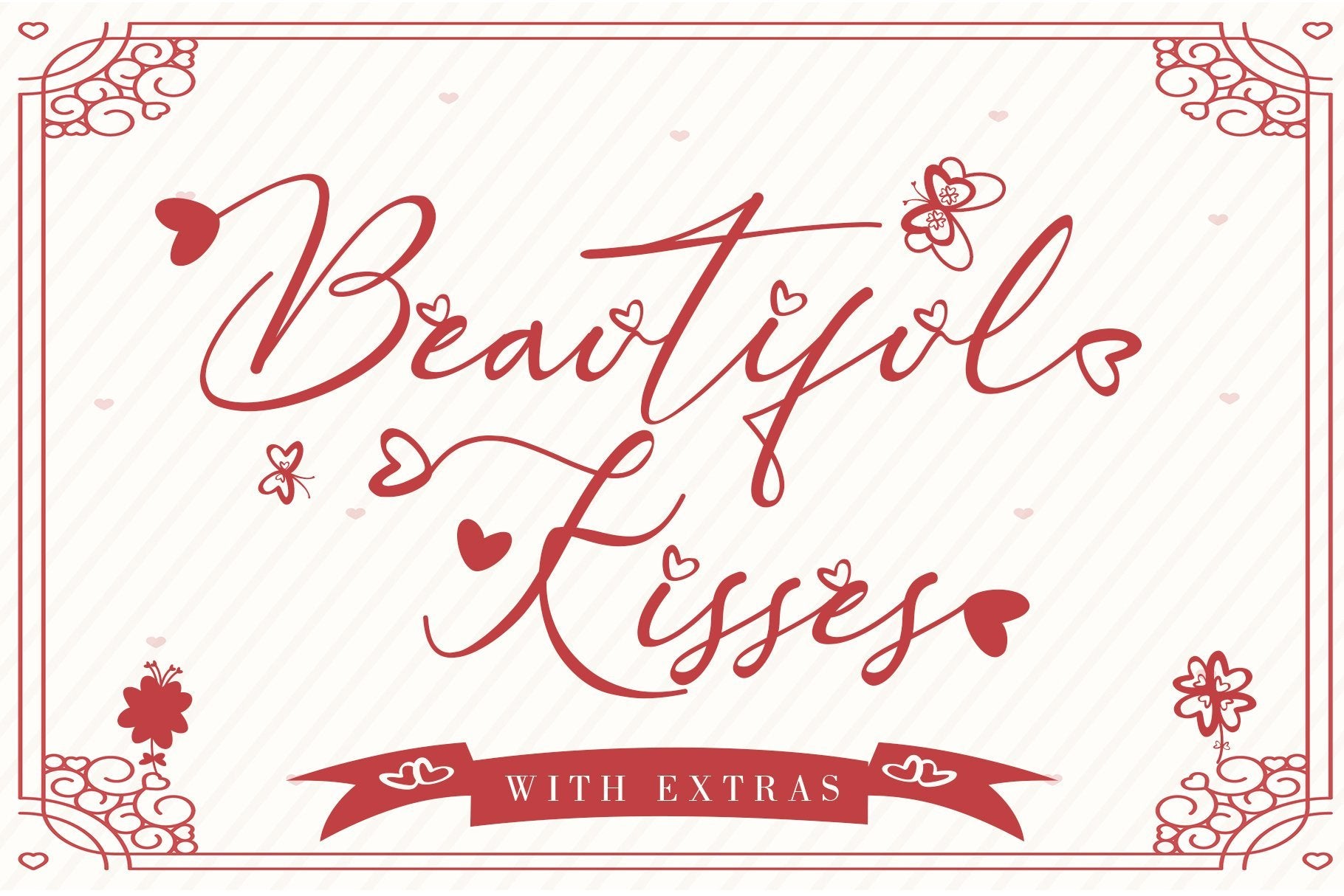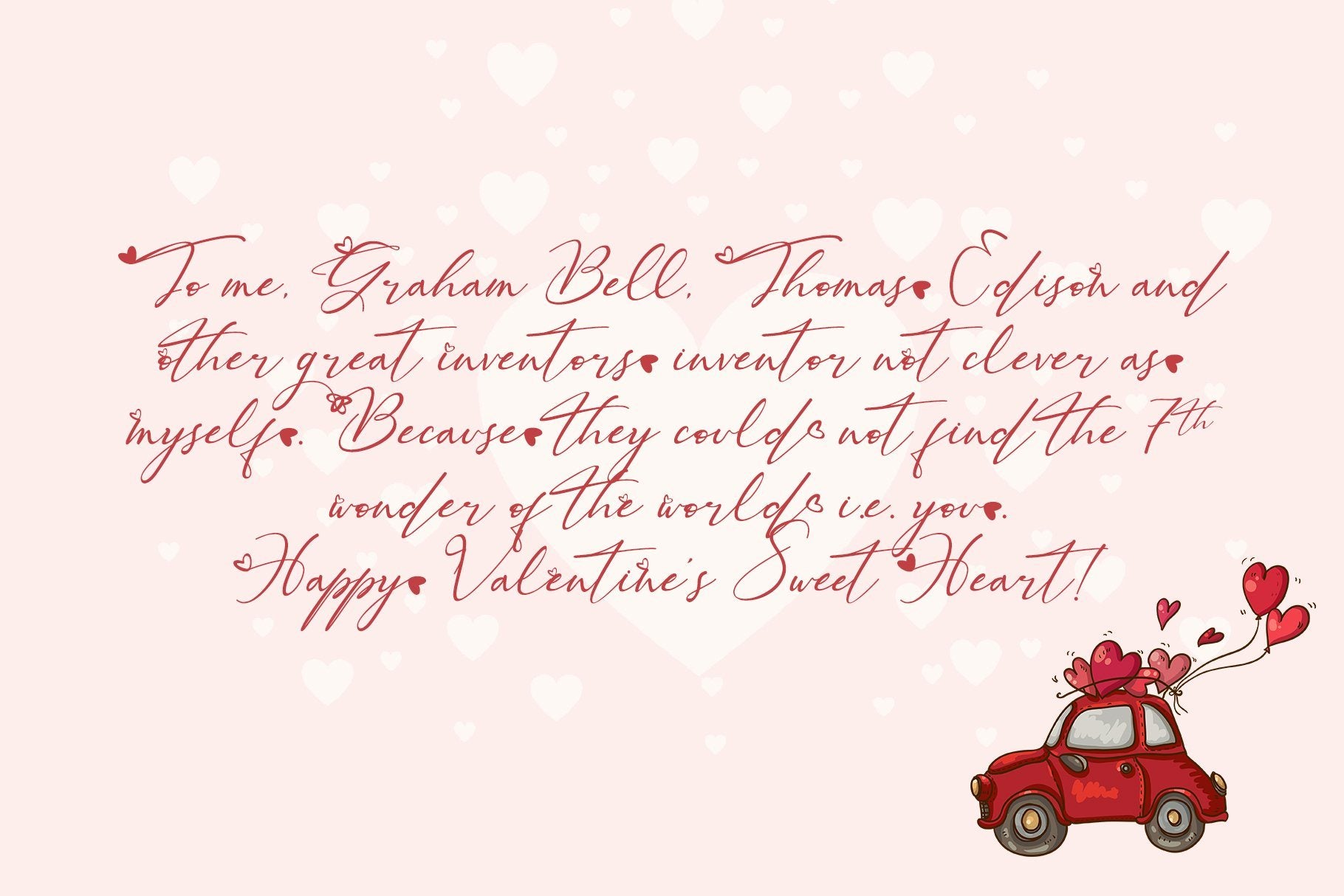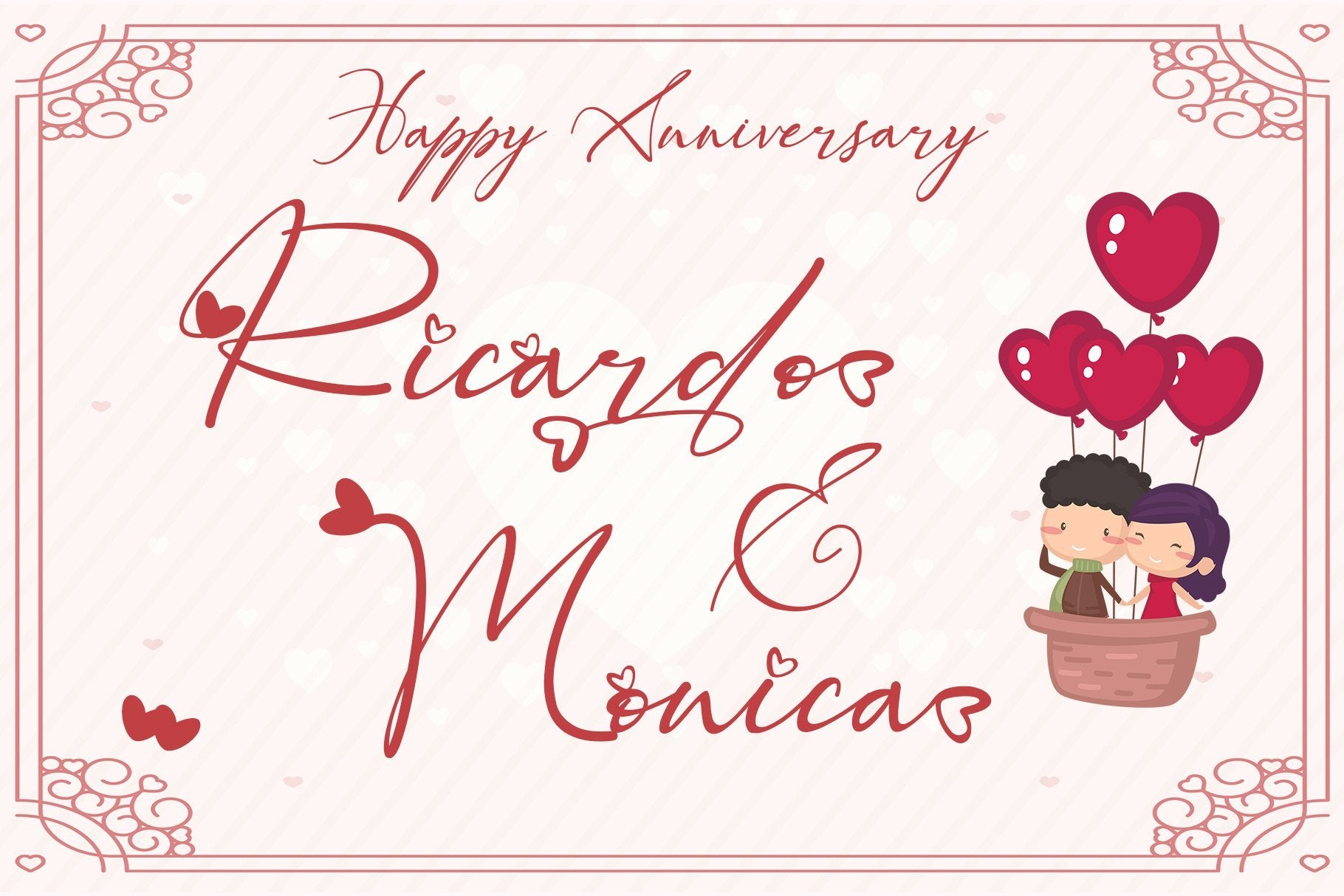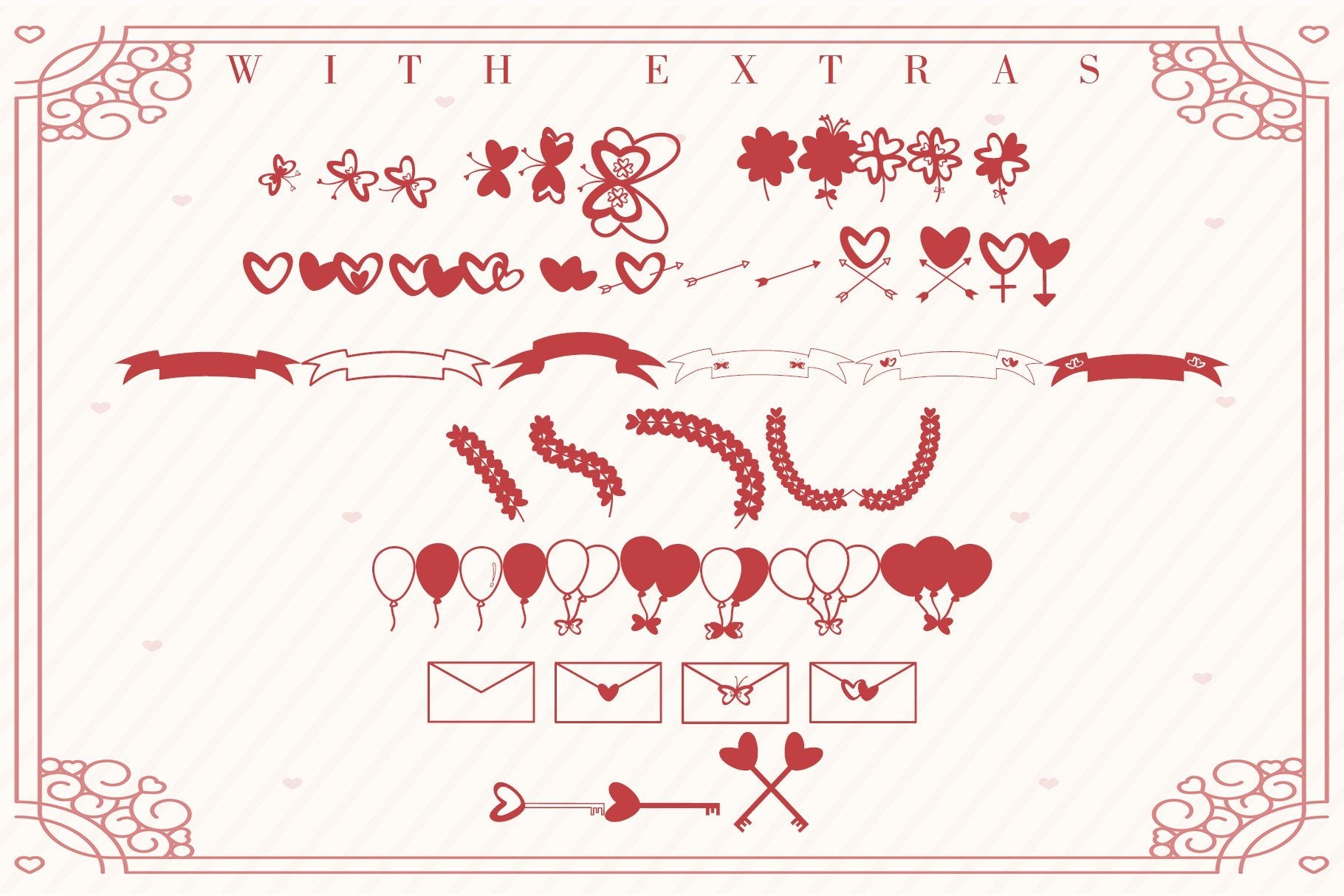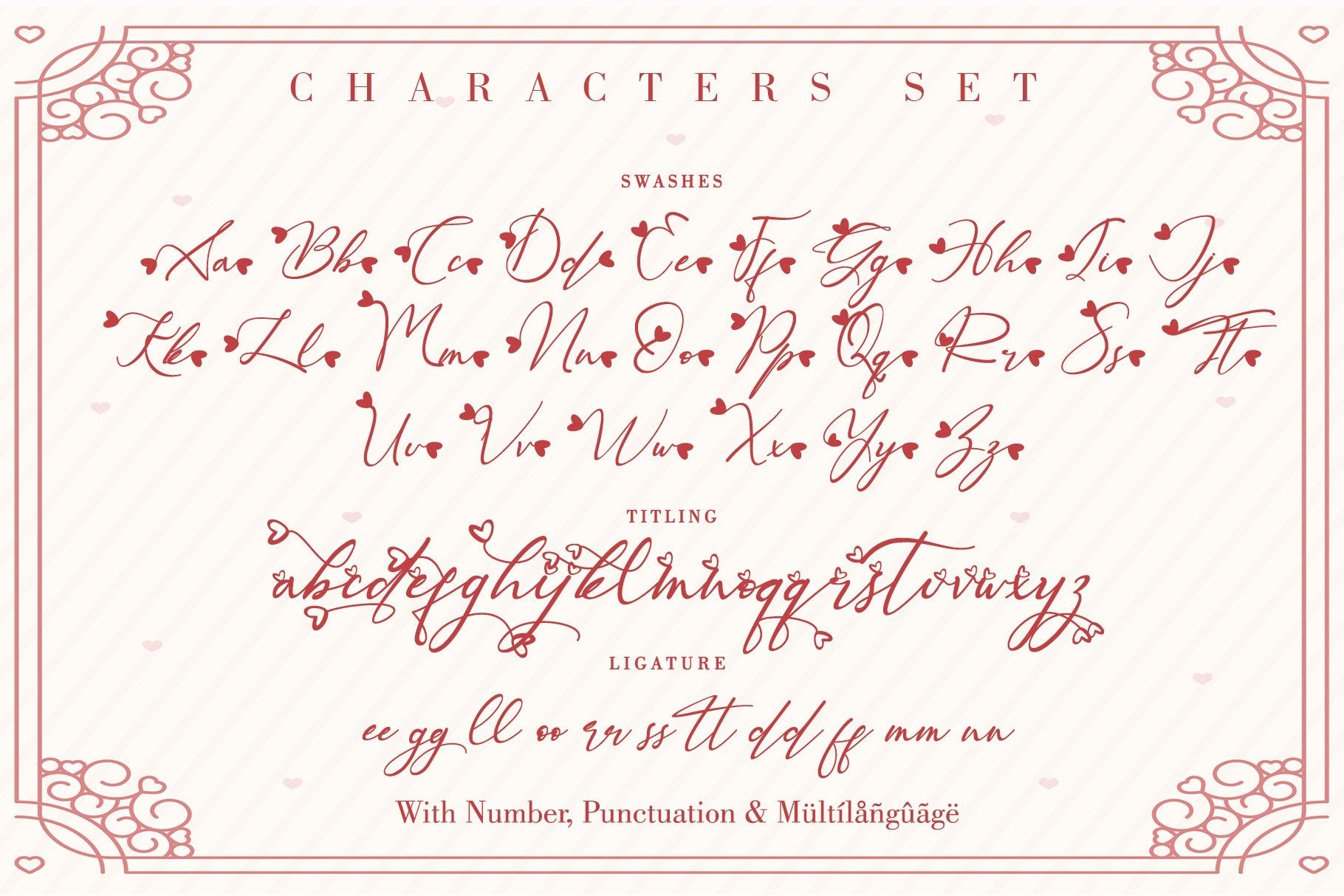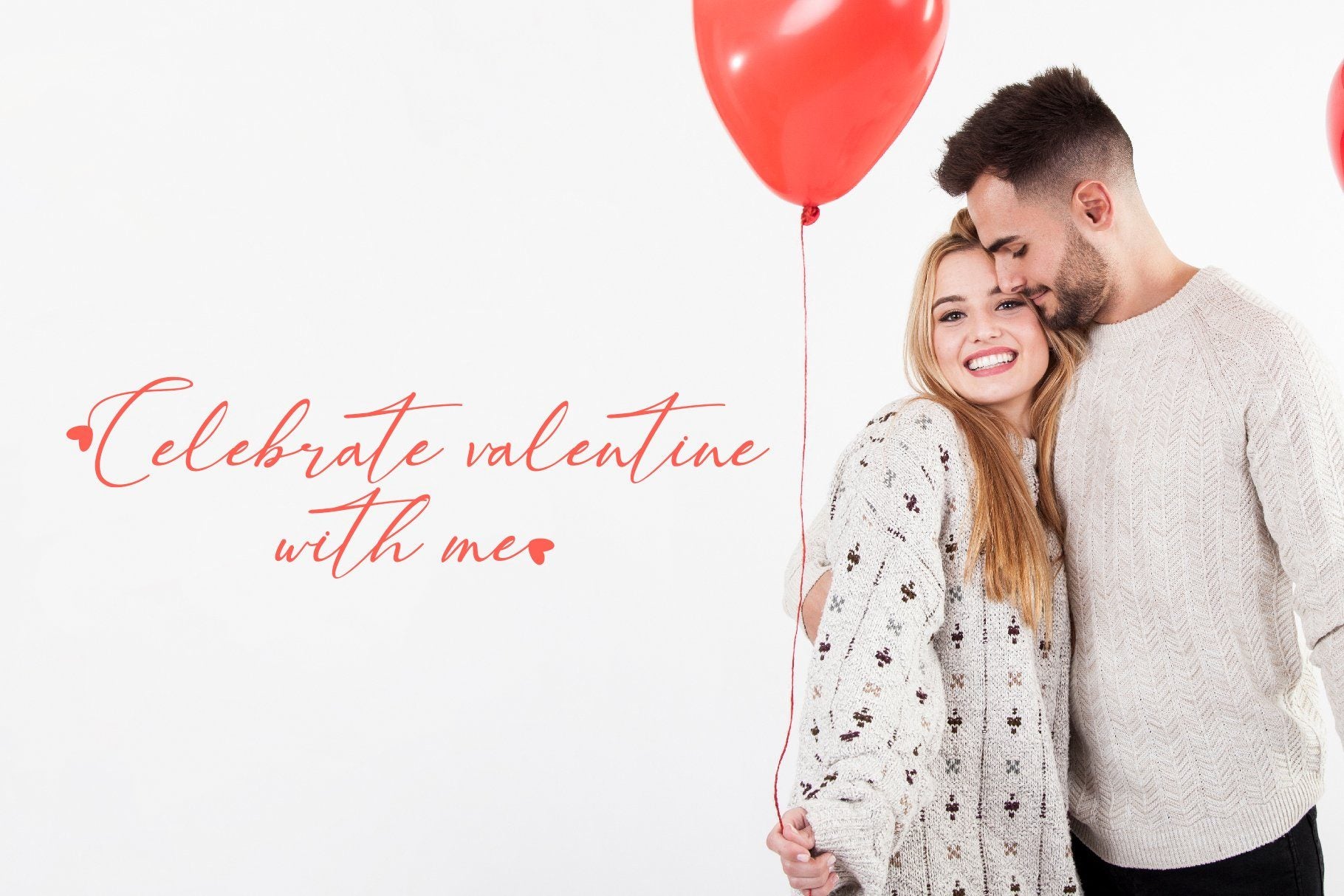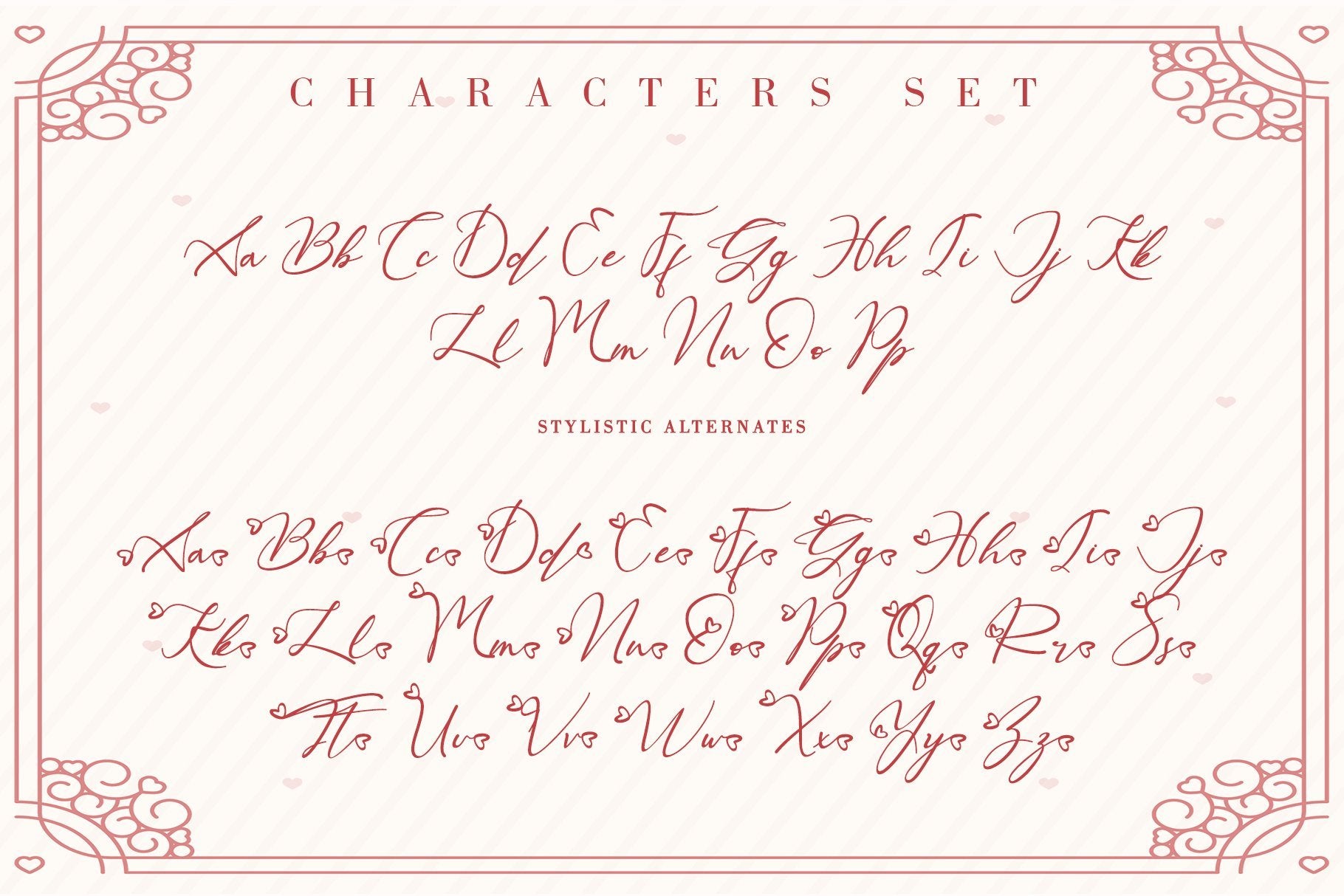
Beautiful Kisses
About Beautiful Kisses
Beautiful Kisses Surely is an extraordinary script and perfect to express your love. “Love must always be worthy of happiness”. It has an amazingly beautiful and elegant style. What’s included: Works both on Mac & PC Simple installations With Extras Alternates (A-Z, a-z), Swash (A-Z, a-z), Titling (a-z), and Ligature Accessible in the Adobe Illustrator, Adobe Photoshop, Adobe InDesign, CorelDraw, even work on Microsoft Word. Support multilingual; ä ö ü Ä Ö Ü ß ¿ ¡ To access the alternate glyphs, you need a program that supports OpenType features such as Adobe Illustrator CS, Adobe Photoshop CC, Adobe Indesign, and CorelDraw. More information about how to access alternate glyphs, check out this link (http://goo.gl/ZT7PqK) don’t wait anymore, put it in your shopping basket 🙂 and follow me, because there will be many promos! Our other products : BEST SELLER REINDEER SNOWKY BRUSH GAMOS HERTINA JENNIE ANTIKA AURORA BLACK PINK SIGNATURE California Street BESTOWENS FAMILY